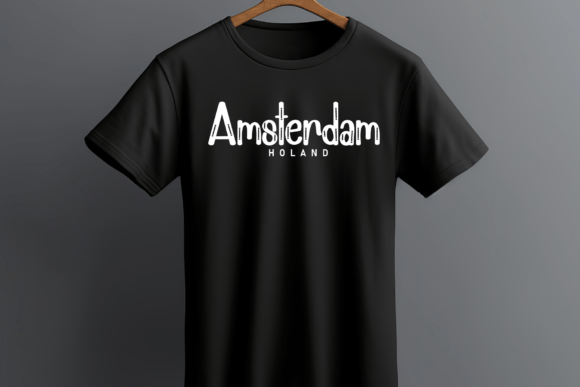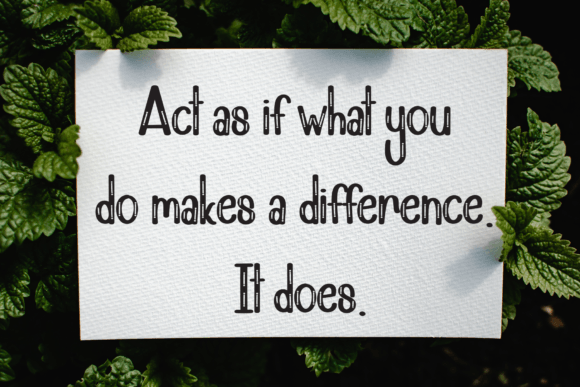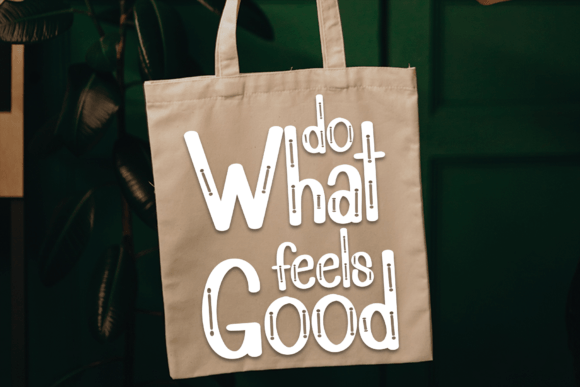
Introduction to Nightday Font
As a designer, have you ever found yourself staring at a blank canvas, searching for the perfect font to bring your creative project to life? That’s exactly where the Nightday Font comes in – a fun and quirky display font that’s sure to add a touch of playfulness to any design.
Imagine a world where your design stands out from the crowd, with letters that seem to dance across the page. With the Nightday Font, that world is now a reality. Its unique and lively letters are perfect for making headlines, posters, and anything that needs a cheerful and eye-catching style. Whether you’re working on a project with a transparent background or need a high-quality font for a print design, the Nightday Font is an invaluable resource for designers.
Key Features of Nightday Font
- High-quality font with a transparent background, making it ideal for creative projects and design resources.
- Supports a wide range of languages and is suitable for various design projects, from logos to digital artwork.
- Features a unique design with a subtle day-night effect, adding an extra layer of creativity to any project.
- Designed with high resolution in mind, making it perfect for use in various design applications, from web design to print materials.
Honest Review: Nightday Font
I recently had the chance to experiment with the Nightday Font, and I must say it’s been a game-changer for my creative projects. With its high quality design and transparent background, I was able to achieve a sleek and modern look that elevated my work.
Here are some of the features that I love about the Nightday Font:
- ✨ Easy to read: The font is clean and clear, making it perfect for body text or titles.
- ✨ Flexible use: Whether I’m working on a digital project or print material, the Nightday Font is a versatile choice that fits my needs.
- ⚠️ Limited font weights: While the font is beautiful, I wish there were more weight options to choose from.
- ⚠️ No bold version: Sometimes, I wish there was a bold version of the font to add more emphasis to my text.
Overall, I’m thoroughly impressed with the Nightday Font. It’s a fantastic design resource that I’ll be using for all my future creative projects.
Tips for Getting the Most Out of Nightday Font
To get the most out of Nightday Font, consider the following tips:
1. Experiment with different font sizes and colors to create a unique look.
2. Use the transparent background to create a sense of depth and dimension in your design.
3. Combine Nightday Font with other design elements to create a cohesive and visually appealing design.
The Nightday Font is suitable for a variety of creative projects, including:
1. Branding and marketing materials.
2. Social media graphics and posts.
3. Print materials, such as business cards and bro